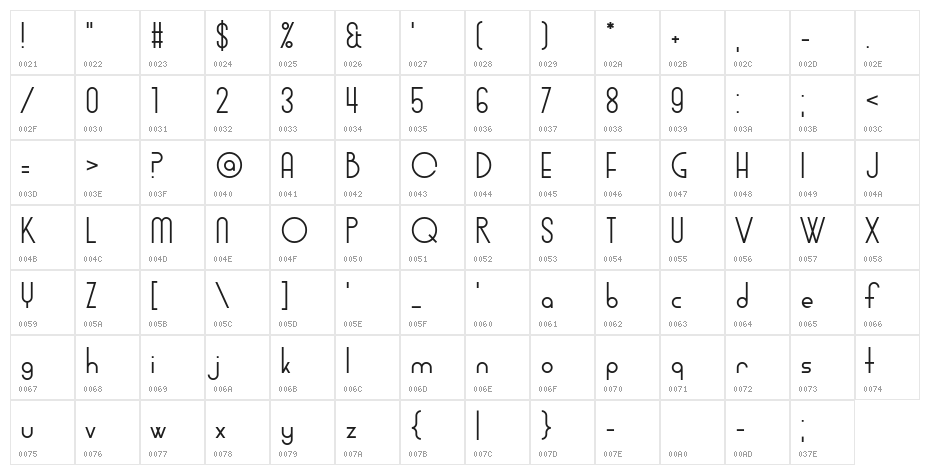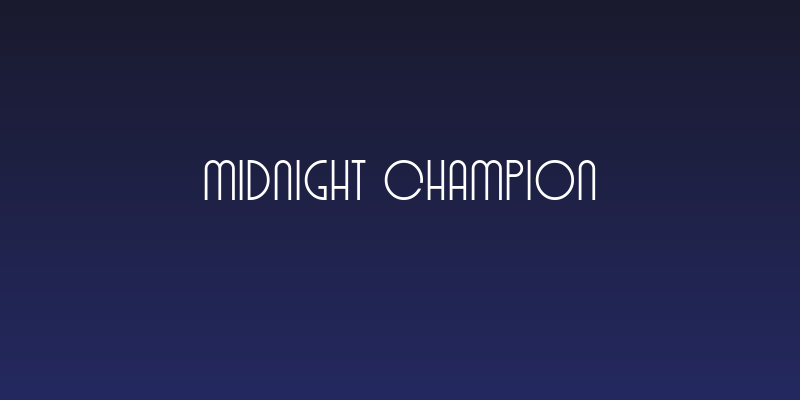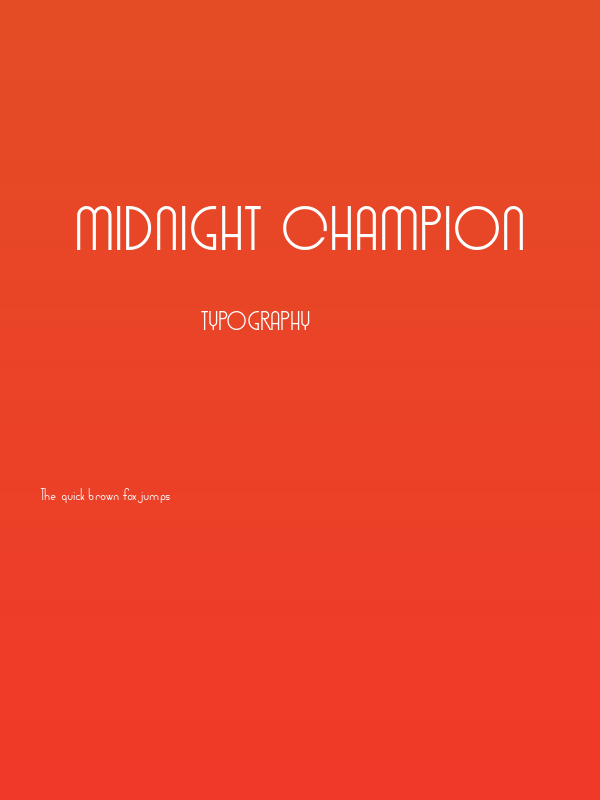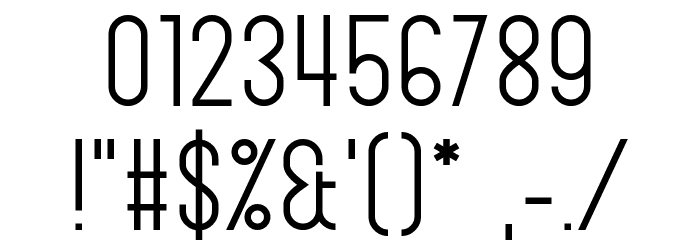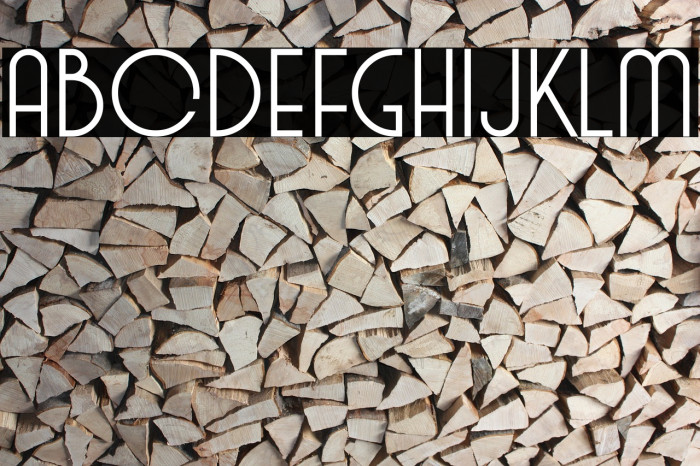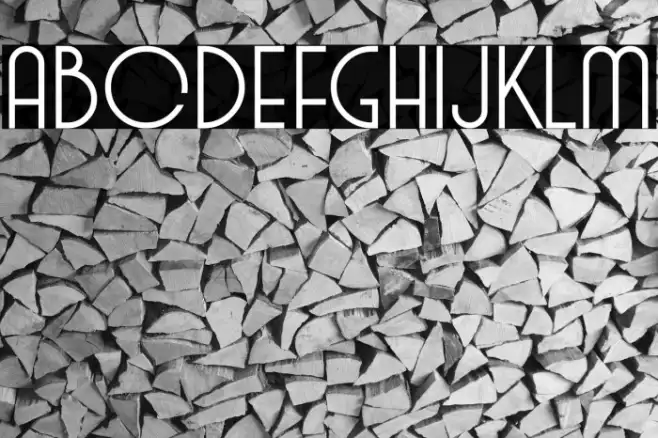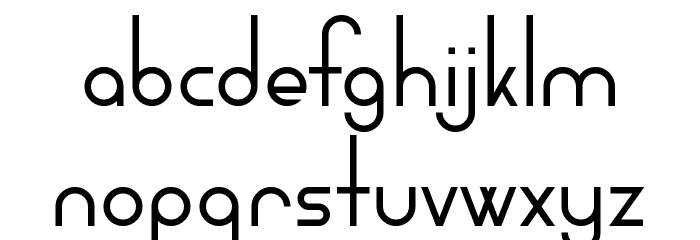
Midnight Champion Font
Midnight Champion Description
This font features a sleek and modern design with clean, geometric lines. The uppercase letters are tall and narrow, giving a sophisticated and elegant appearance. The lowercase letters maintain a consistent style, with rounded edges that add a touch of softness to the overall look. The numerals are uniform and align well with the alphabet, ensuring readability. Special characters are distinct and harmonize with the rest of the font, making it versatile for various uses. Its minimalistic approach is perfect for contemporary designs, offering a balance between style and functionality.
| Proposed Projects | Ideal for branding, editorial design, web design, and advertising materials. |